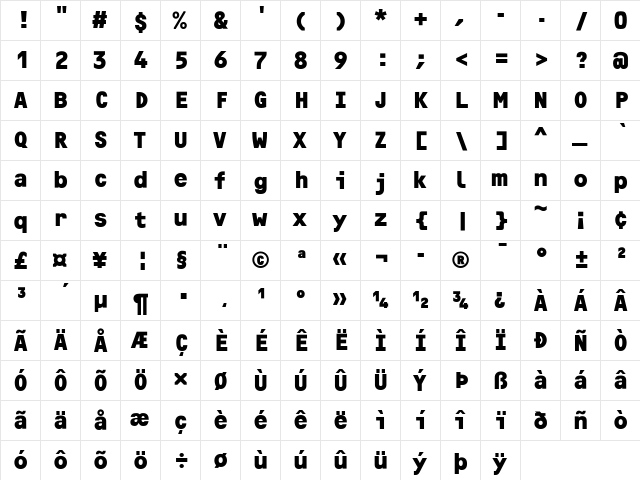
OCRF Bold
| Foundry | Dutch Design, Albert-Jan Pool, Hamburg, Germany, |
Design Context for OCRF Typeface
OCRF offers clean, dependable letterforms without strong stylistic allegiance, making it a practical choice for designers who need flexibility. The heavy weight commands attention and anchors typographic hierarchies.